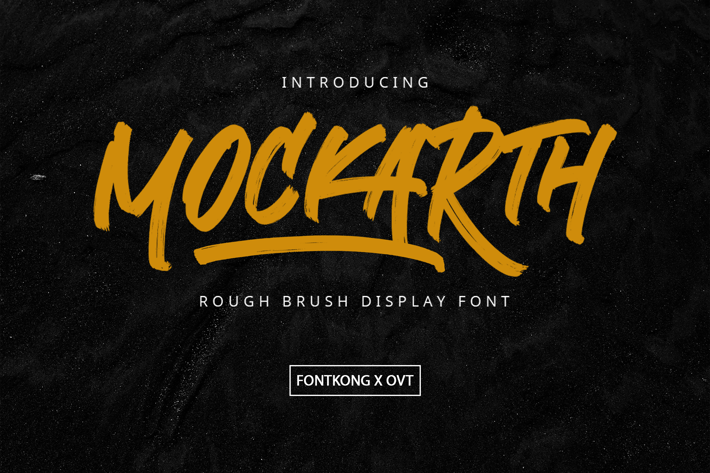
Mockarth - Rough Brush Display Font
Introducing "Mockarth," a rough brush display font that infuses your projects with boldness and raw artistic energy. Perfect for graphic designers, illustrators, and creatives who want to add a rugged and dynamic touch to their work, Mockarth combines the power of brush strokes with an edgy design.
Ideal for posters, logos, album covers, social media graphics, and branding materials, Mockarth’s gritty and textured style provides a striking and impactful aesthetic. Each character is meticulously crafted to reflect the spontaneity and intensity of brush lettering, ensuring your designs make a lasting impression.
The "Mockarth" font includes a complete set of uppercase and lowercase letters, numbers, punctuation marks, and a variety of ligatures and stylistic alternates. This versatility offers extensive creative freedom, making it perfect for a wide range of design applications, from dramatic advertisements to bold visual statements.
Elevate your designs with Mockarth, a rough brush display font that delivers boldness and raw appeal with every stroke.
Introducing "Mockarth," a rough brush display font that infuses your projects with boldness and raw artistic energy. Perfect for graphic designers, illustrators, and creatives who want to add a rugged and dynamic touch to their work, Mockarth combines the power of brush strokes with an edgy design.
Ideal for posters, logos, album covers, social media graphics, and branding materials, Mockarth’s gritty and textured style provides a striking and impactful aesthetic. Each character is meticulously crafted to reflect the spontaneity and intensity of brush lettering, ensuring your designs make a lasting impression.
The "Mockarth" font includes a complete set of uppercase and lowercase letters, numbers, punctuation marks, and a variety of ligatures and stylistic alternates. This versatility offers extensive creative freedom, making it perfect for a wide range of design applications, from dramatic advertisements to bold visual statements.
Elevate your designs with Mockarth, a rough brush display font that delivers boldness and raw appeal with every stroke.